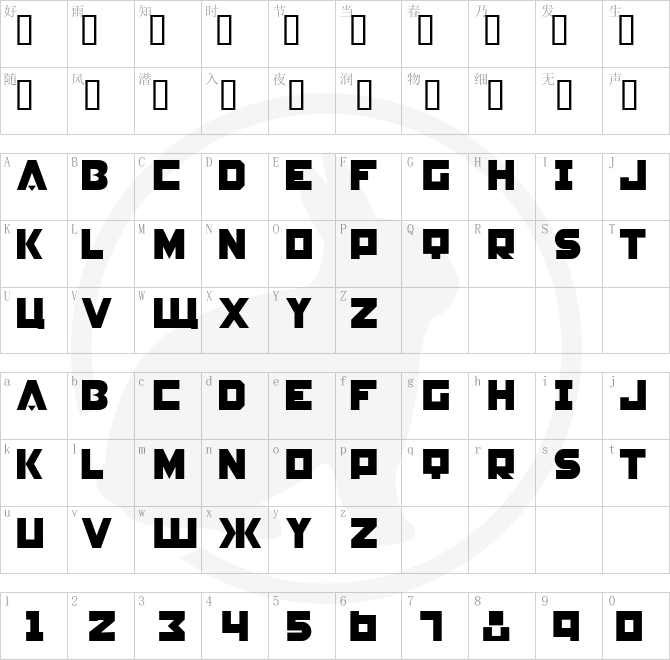
- Font Name:P22 Constructivist
P22-Constructivist-Square.ttf is a very beautiful artistic font, P22-Constructivist-Square.ttf is widely used in the design and printing of various books and pictures,P22-Constructivist-Square.ttf has a strong visual impact,P22-Constructivist-Square.ttf is a commonly used font in newspapers, magazines and books, and is used in posters, e-commerce Poster design, store design, logo design, font design and other fields.P22-Constructivist-Square.